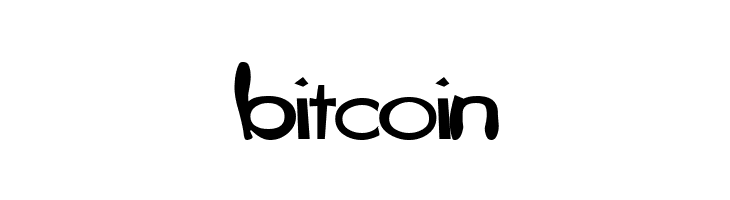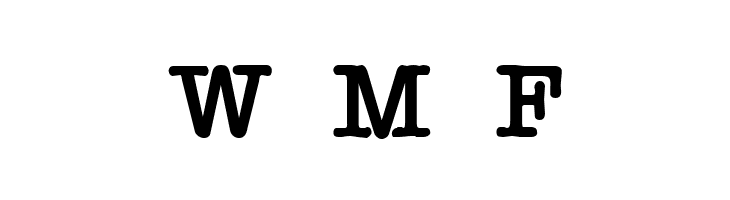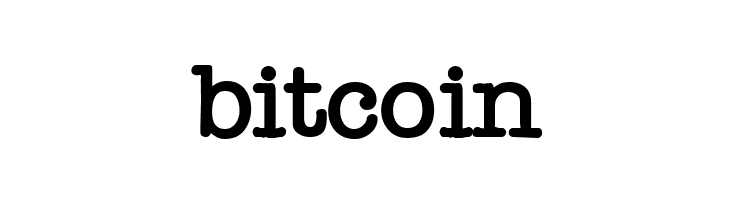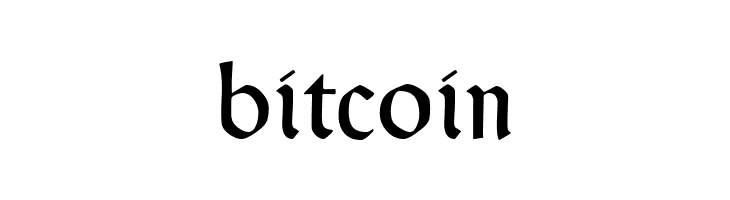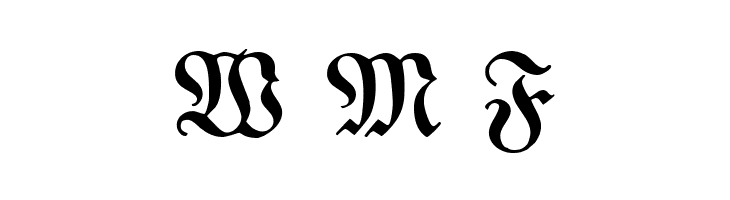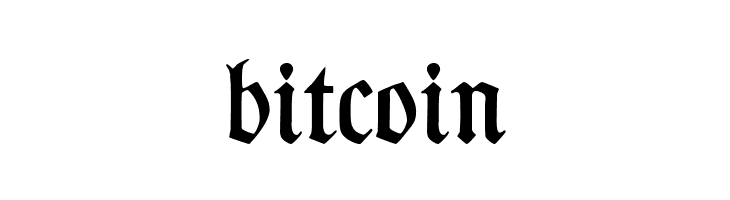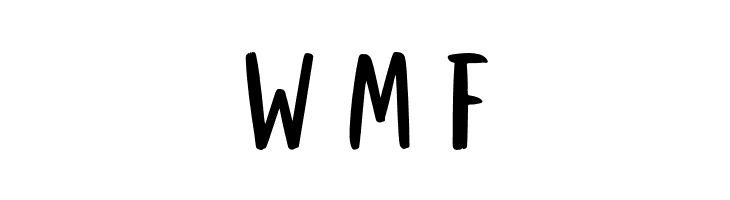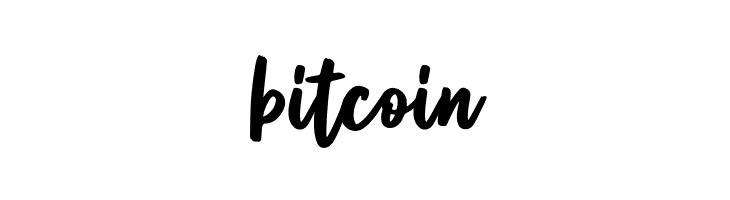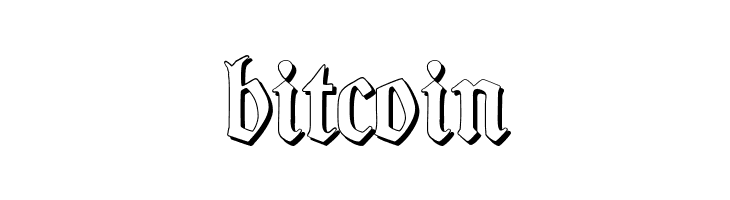
A playful and quirky font with twisted, irregular characters.
A bold, playful handwritten font with thick strokes and lively letterforms.
A bold, playful handwritten font with thick strokes and dynamic letterforms.
Hand-drawn dingbat font with tea and kitchen-themed illustrations.
A bold, outlined font with a vintage, decorative style.
A bold, three-dimensional box-like font with rounded edges and a geometric style.
Vintage-inspired dingbat font with playful, hand-drawn illustrations.
A bold, monospaced font with a classic typewriter style and slab serifs.
A classic, condensed typewriter-style font with monospaced characters.
A vintage, typewriter-inspired font with monospaced, slightly irregular strokes.
A playful, handwritten-style font with rounded edges and consistent strokes.
A bold, playful typewriter-inspired font with rounded, irregular characters.
A modern oblique typewriter-style font with clean lines and excellent readability.
A bold, playful font with irregular, blob-like shapes and a whimsical design.
A display font featuring illustrated faces as glyphs.
A whimsical typeface with characters holding letter signs, ideal for creative projects.
A whimsical, decorative font with playful, eye-like characters.
A playful font featuring monkey silhouettes integrated into bold, blocky characters.
A bold Gothic font with sharp, angular lines and intricate detailing.
A modern decorative font with high contrast and intricate flourishes.
A bold, 3D geometric font with a brick-like design.
A bold, abstract font with geometric shapes and high contrast, offering a modern and artistic look.
Highly decorative and abstract symbol set with geometric and illustrative motifs.
A decorative font with ghostly, intricate linework within bold circular forms.
A classic blackletter font with sharp, angular lines and high contrast, ideal for traditional and decorative uses.
A modern take on medieval script with sharp, angular strokes and a cohesive design.
A calligraphic-inspired font with angular strokes and a blend of traditional and modern elements.
A classic blackletter font with sharp, angular lines and a medieval aesthetic.
A bold, gothic-inspired font with sharp, angular lines and a medieval touch.
A bold, ornate blackletter font with intricate medieval styling.
A bold, decorative blackletter font with intricate contours and a gothic style.
A bold and ornate Blackletter font with intricate details and strong vertical lines.
A decorative blackletter font with shadow effects, offering a classic and dimensional look.
A decorative Blackletter font with intricate details and a medieval aesthetic.